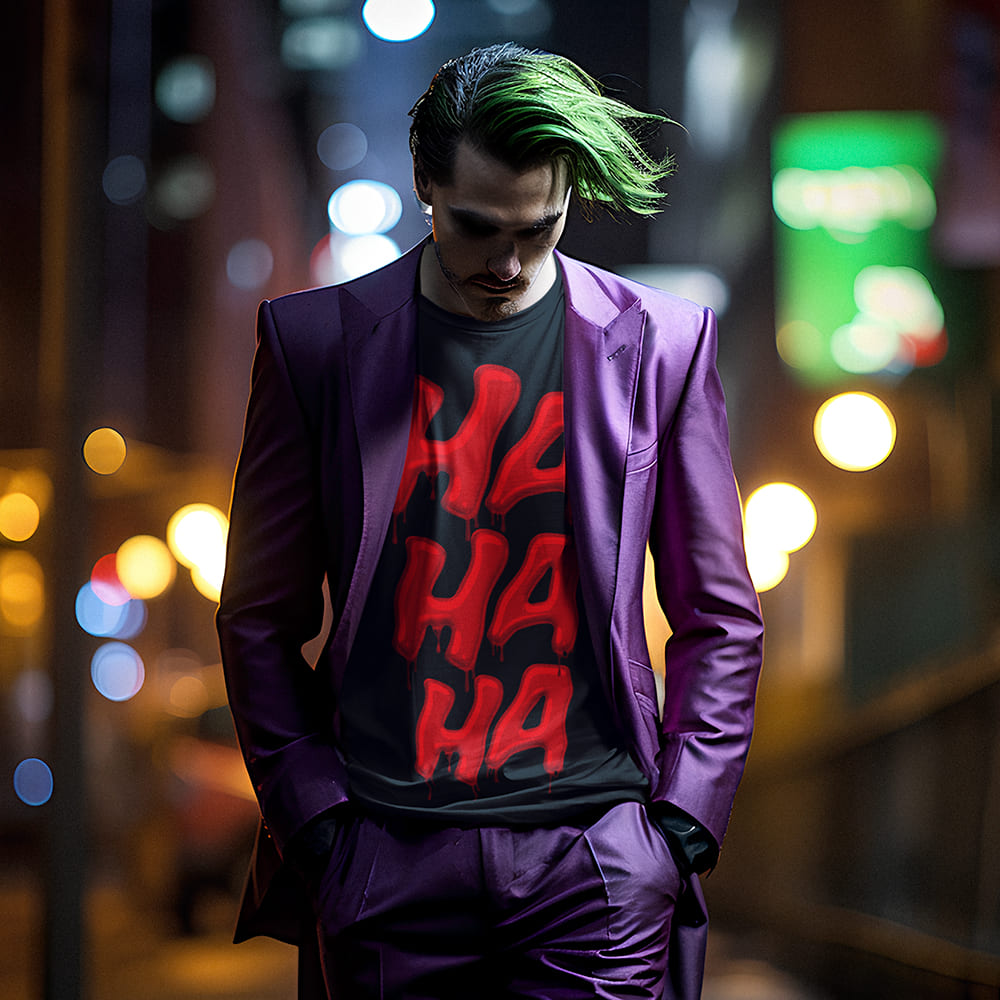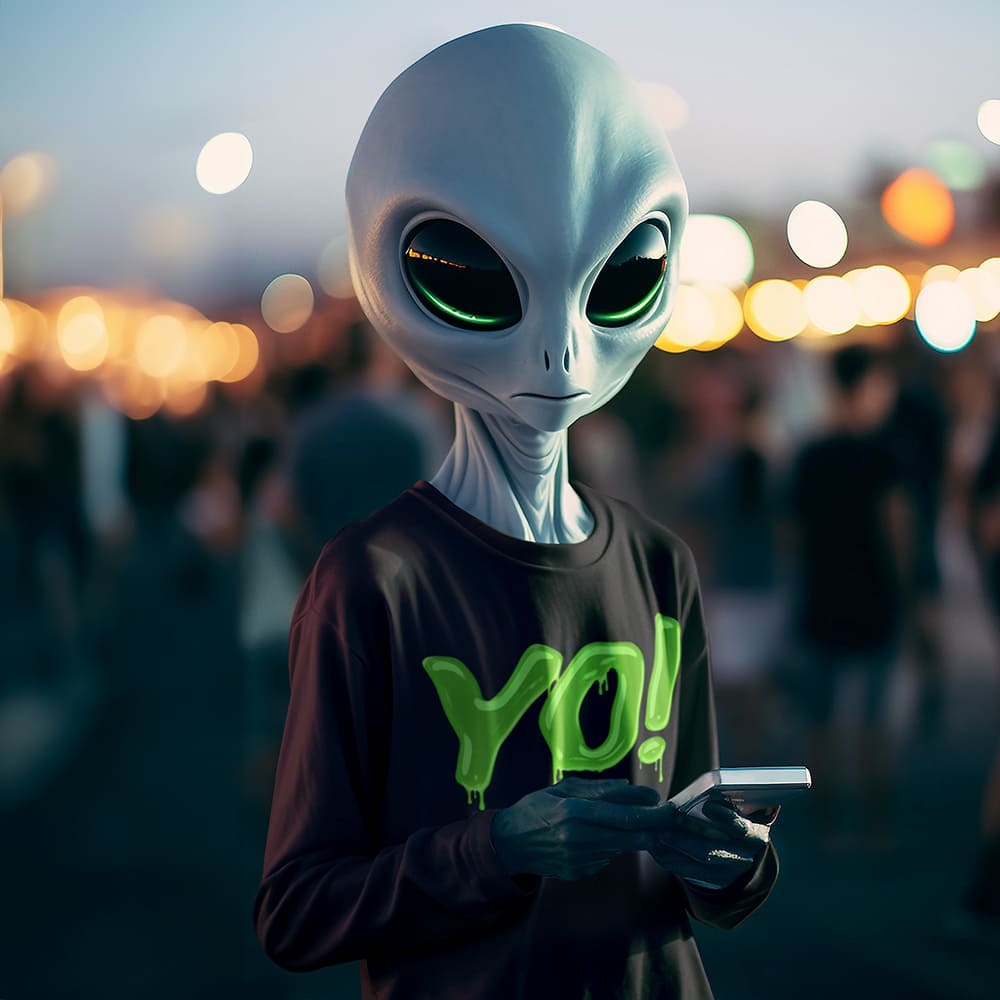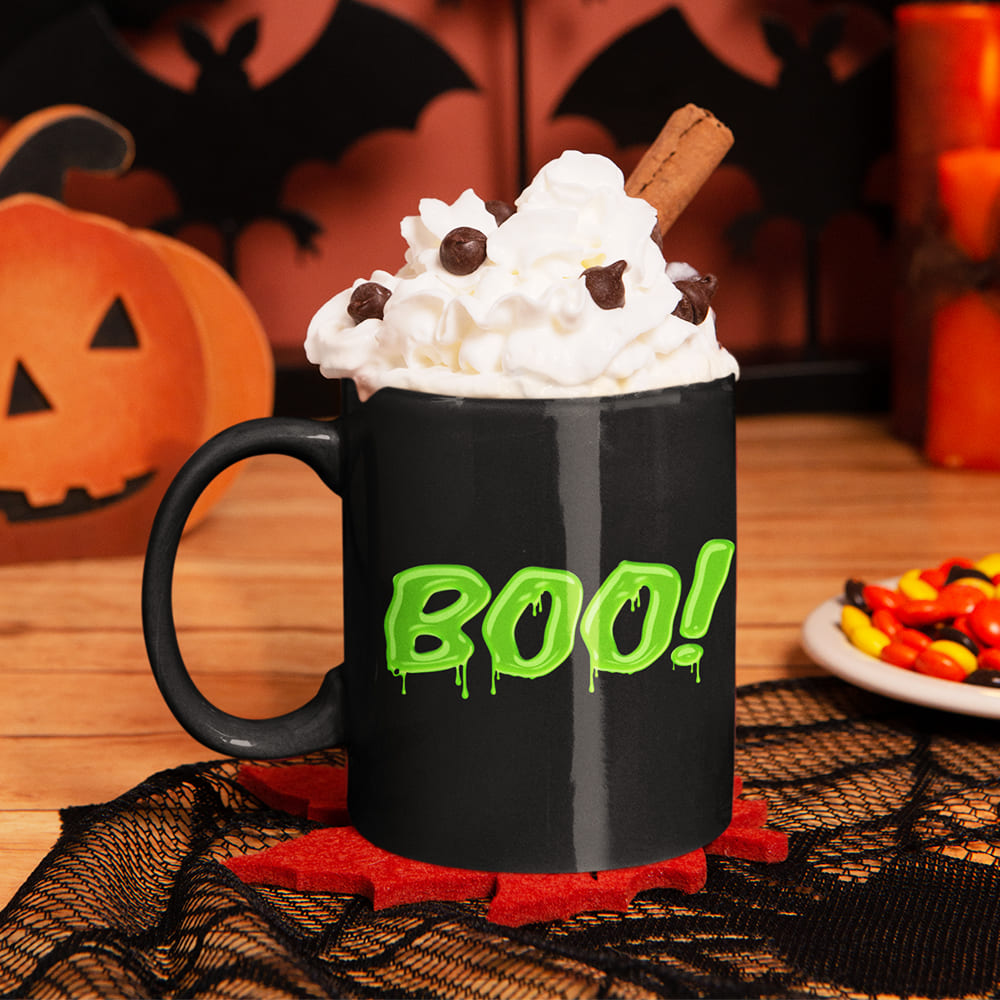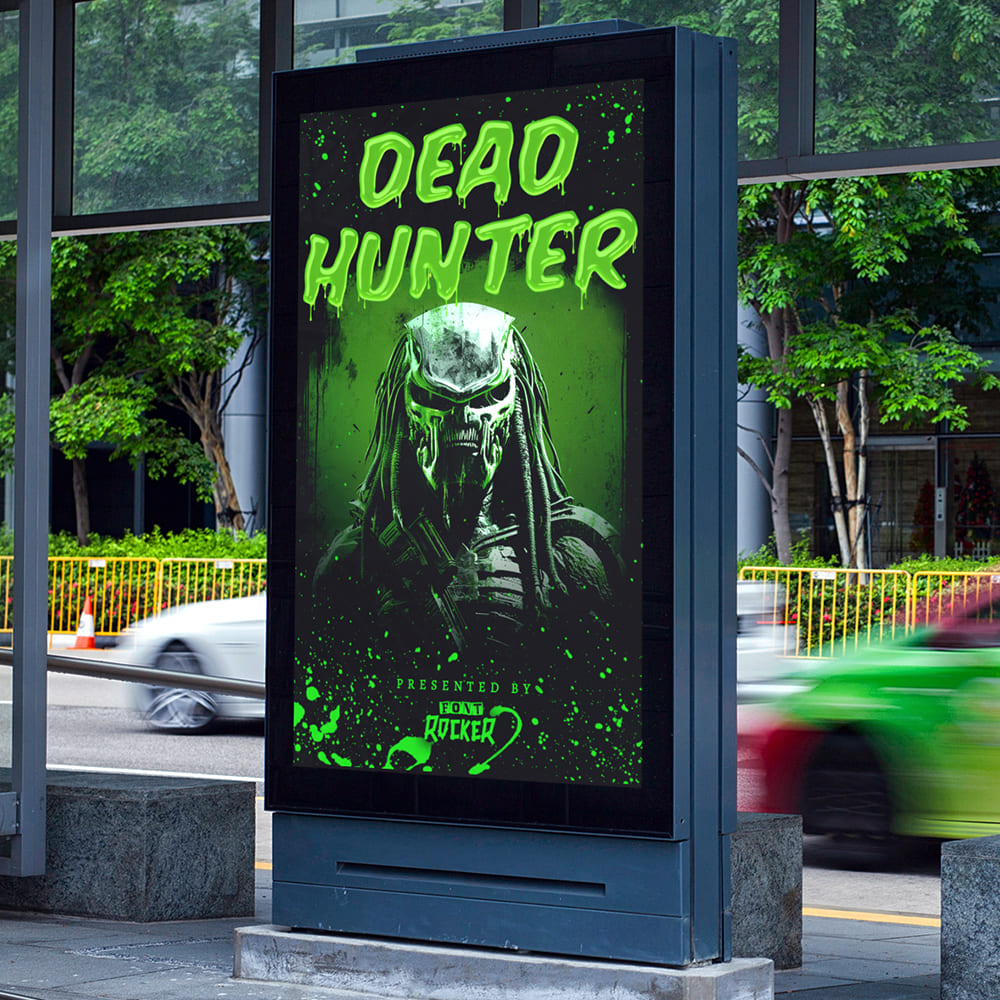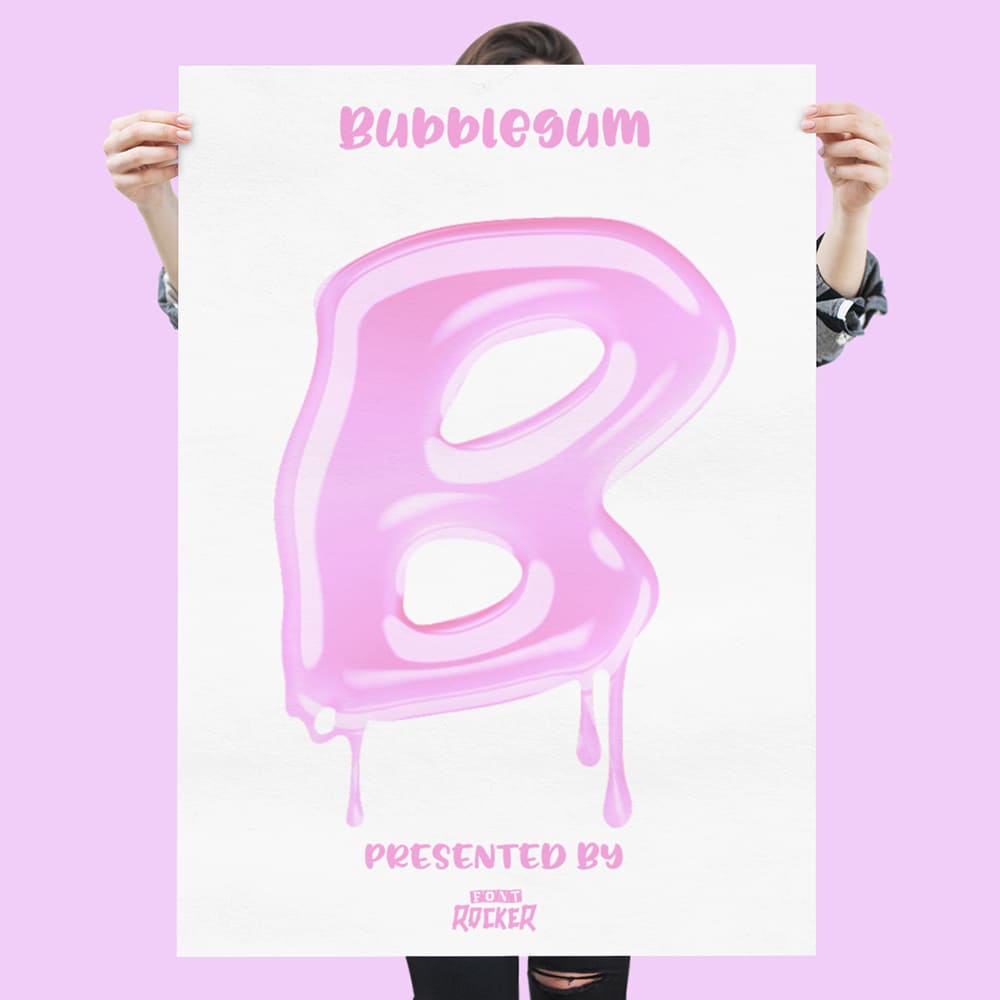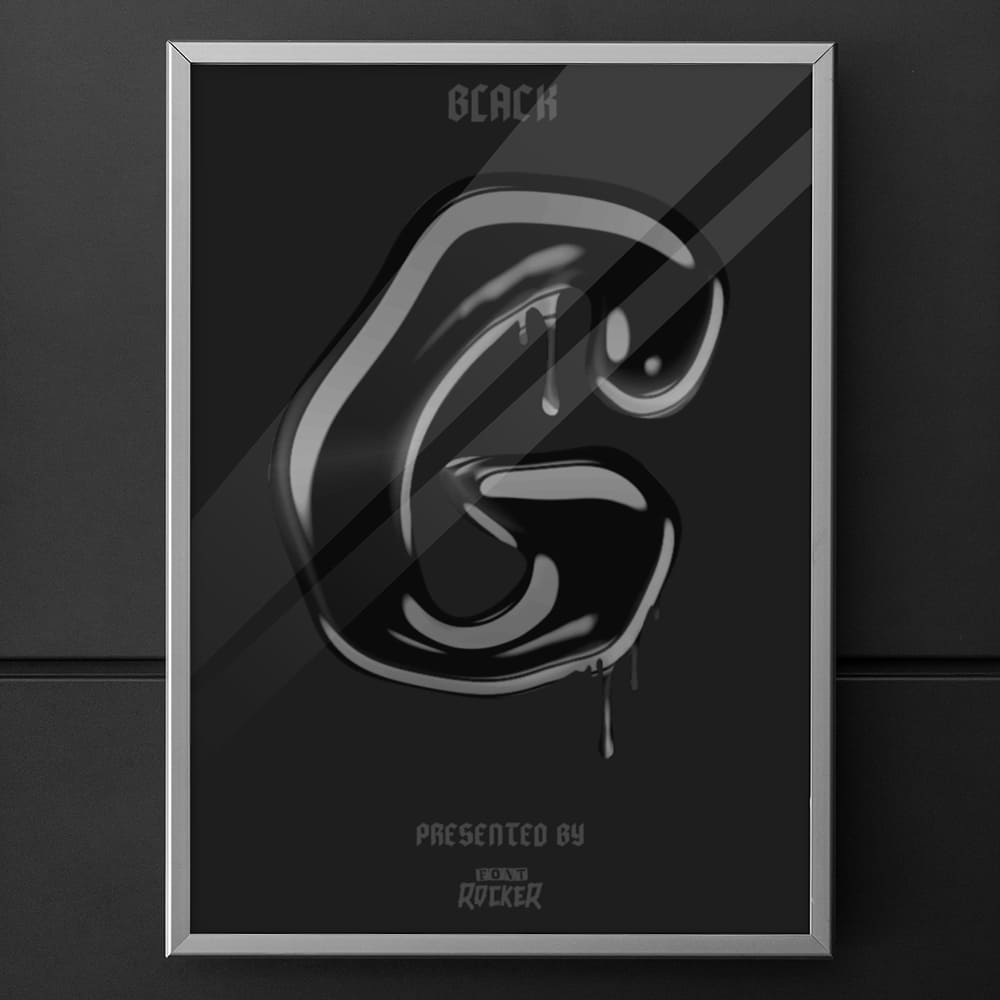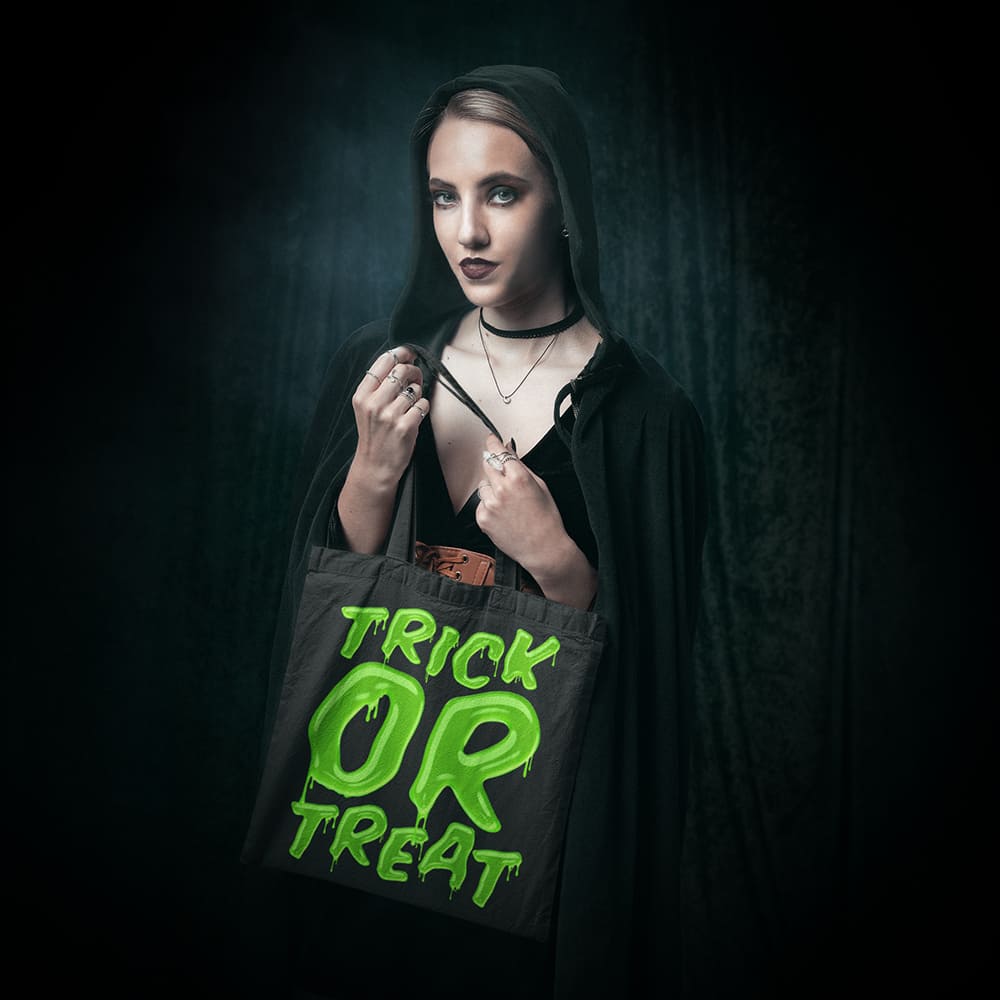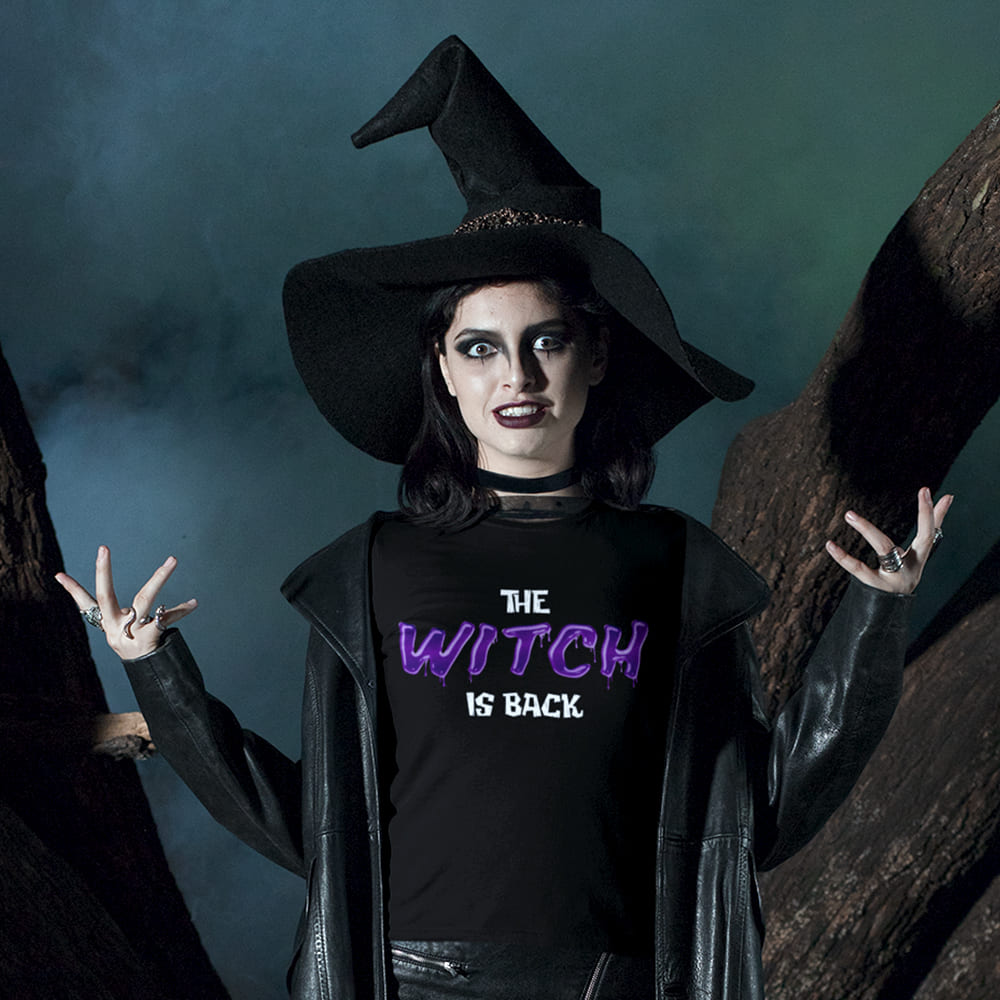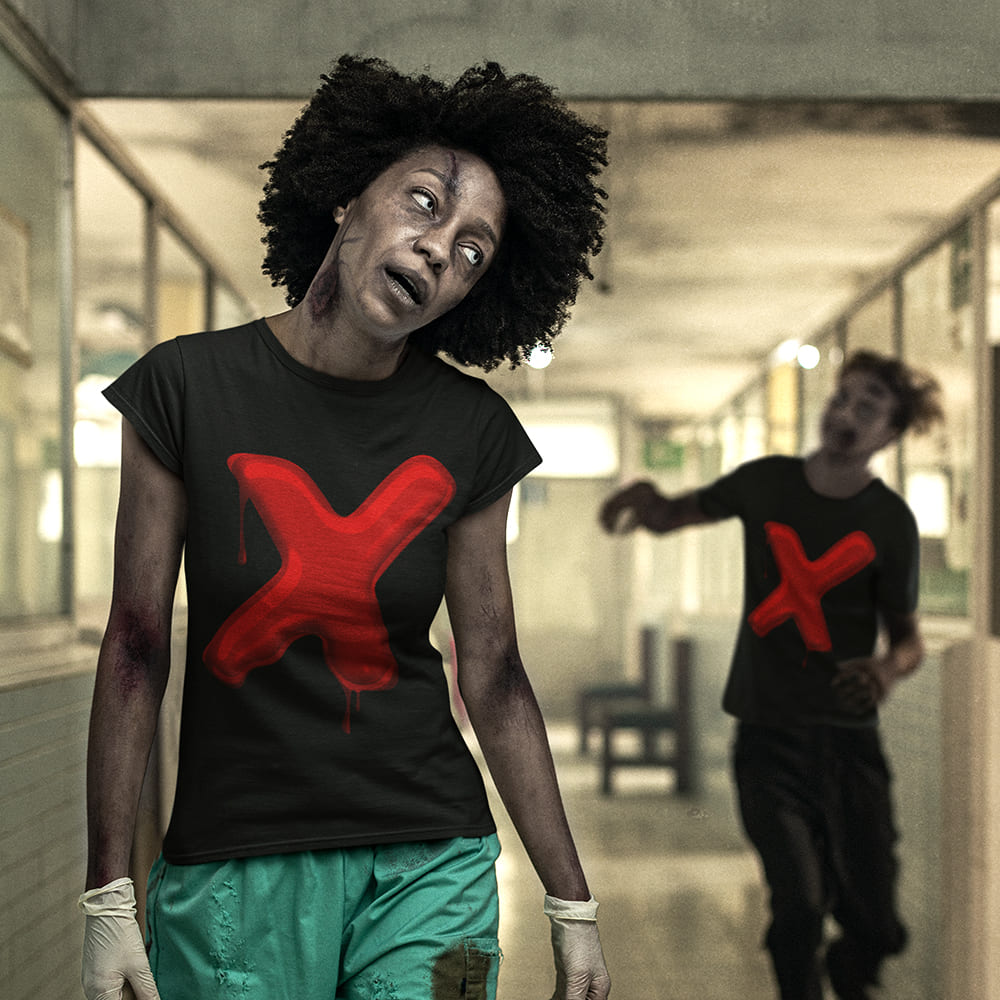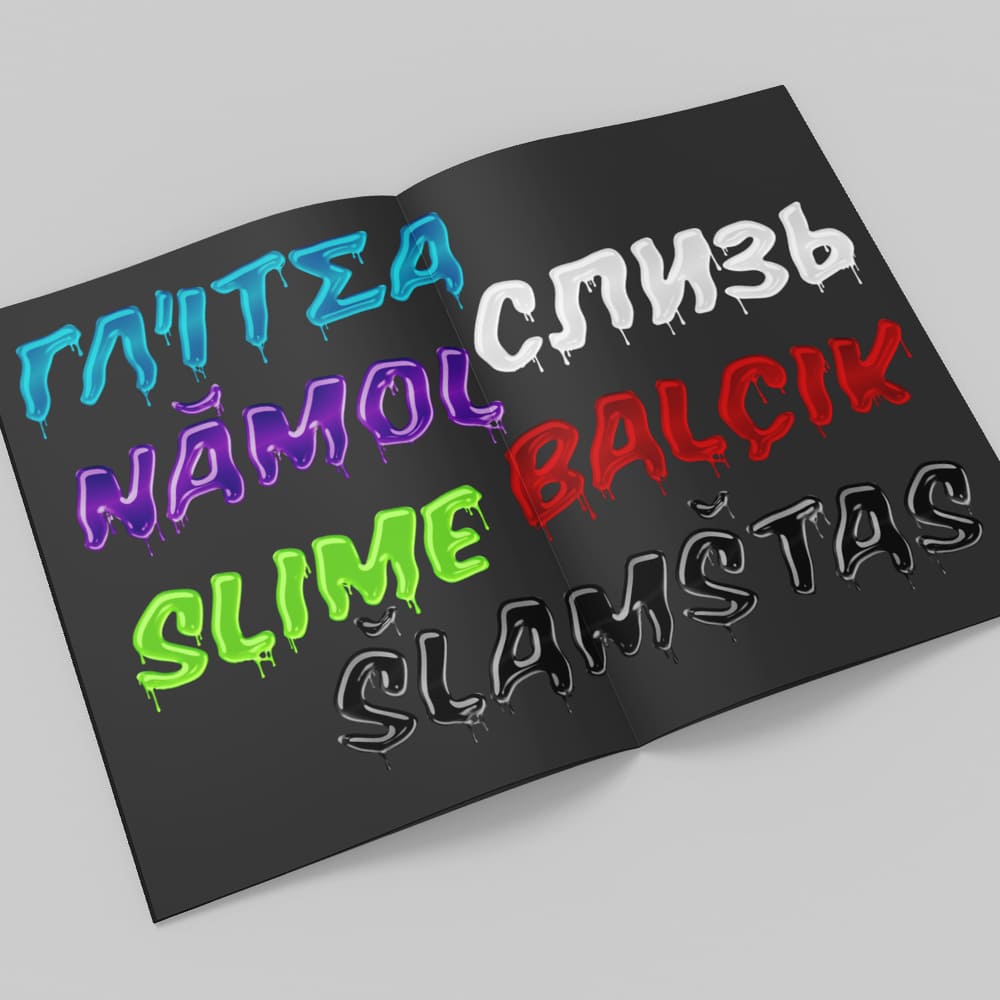
Slimer Font
Gooey, Bold, Unstoppable! π»π’π§π§βοΈ
If your design craves slimy extravagance and ghostly coolness, then the Slimer Font is the perfect choice! Inspired by iconic ghost hunters, dripping monsters, and neon-colored nightmares, this font delivers the ultimate ectoplasmic look straight to your screen.
Why Choose the Slimer Font?
πΉ Drippy Style with Character β Oozing, gooey, and full of movement, as if it just escaped from a mad scientistβs lab!
πΉ Perfect for Horror, Halloween & Pop Culture Designs β Whether for movie posters, game logos, party flyers, or merchandise, this font is a true eye-catcher.
πΉ Bold Color Variations for Extra Effect β In toxic green, it looks like glowing slime, in bright red, it drips like blood, and in vibrant pink, it has a stretchy bubblegum vibe!
Slime It Up, Style It Out!Β
With the Slimer Font, every letter transforms into a dripping, eye-catching monster attack! Perfect for designs that are loud, unforgettable, and delightfully spooky.
πΉ Make it gooey. Make it spooky. Make it Slimer!